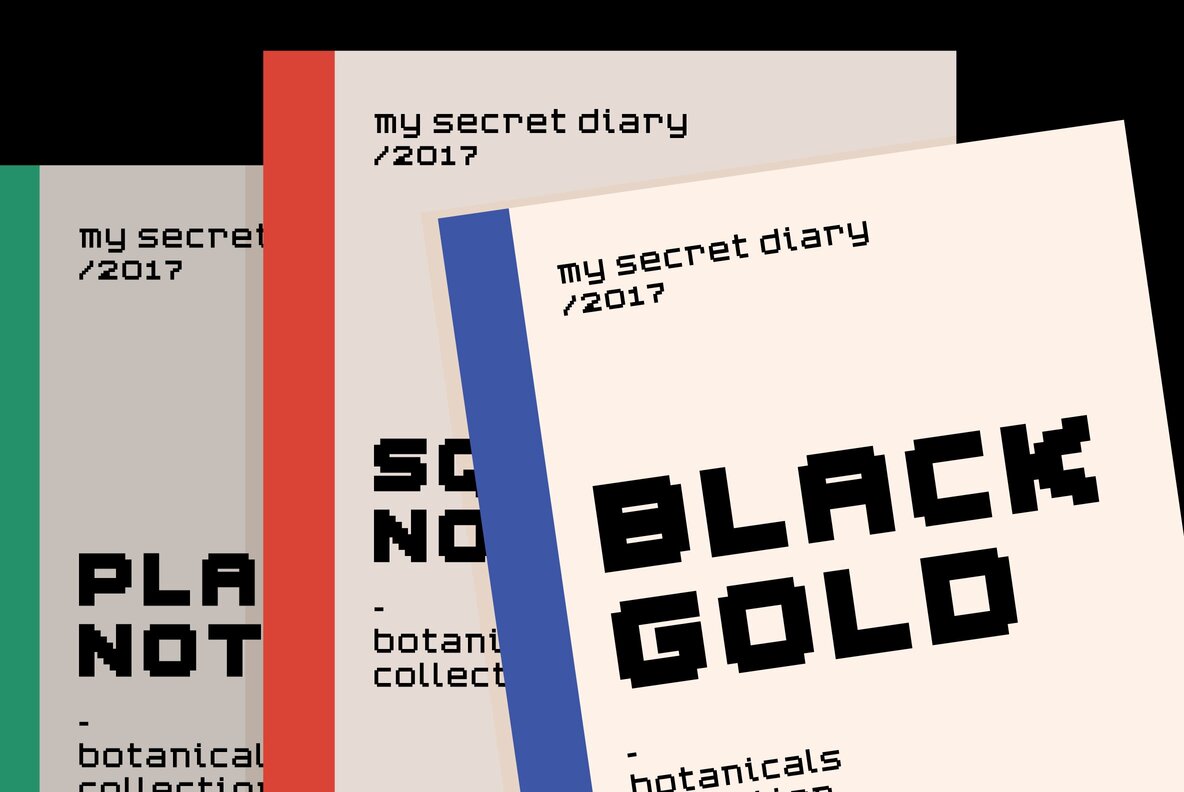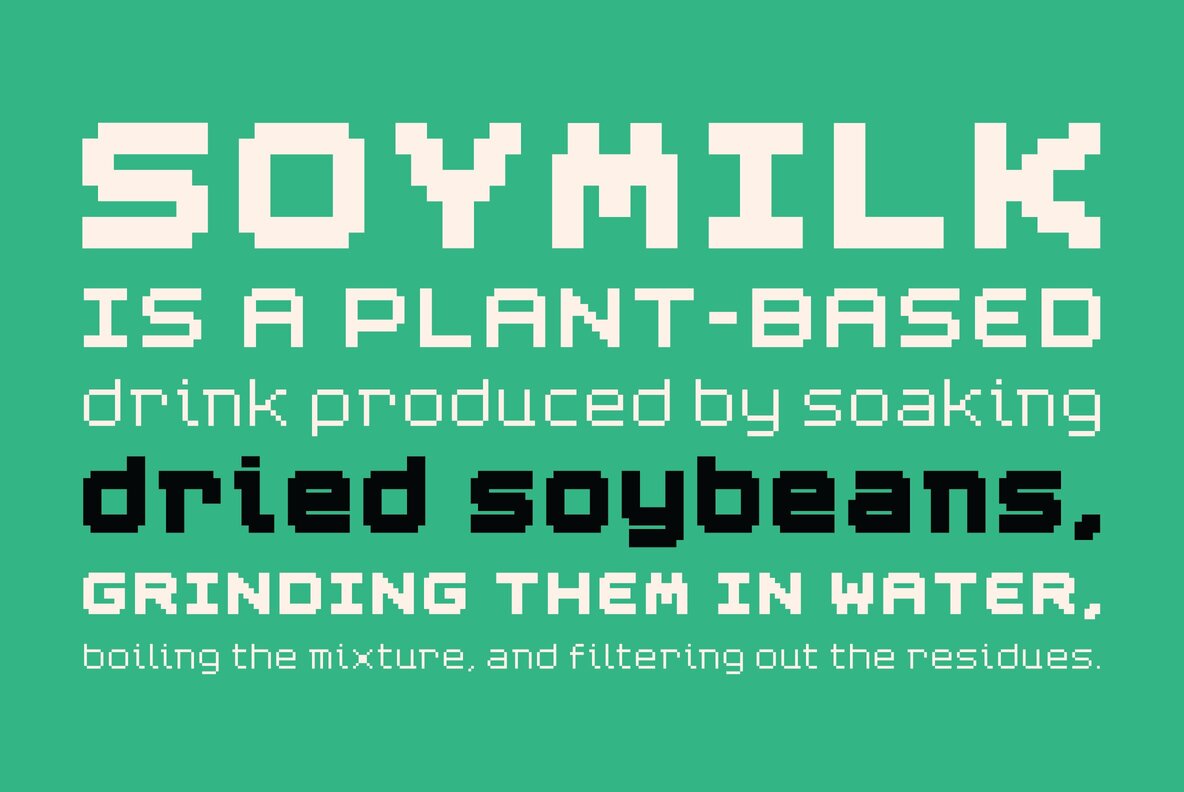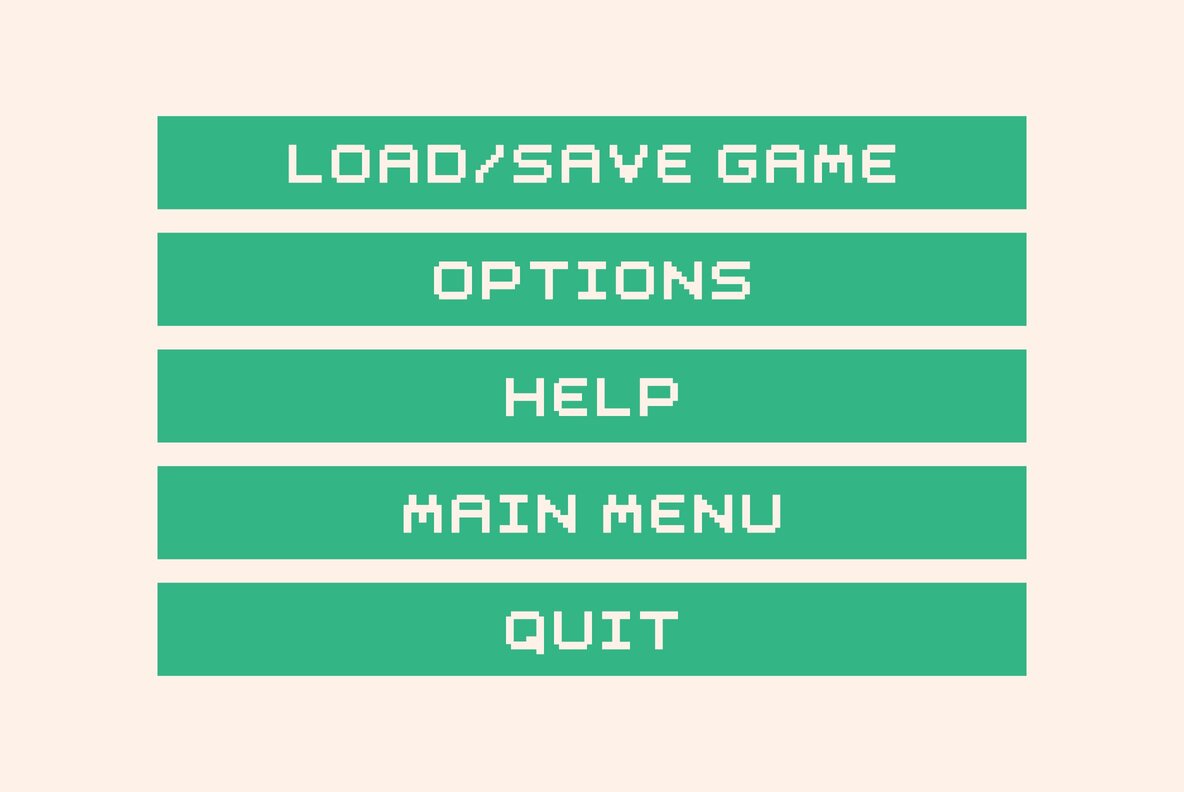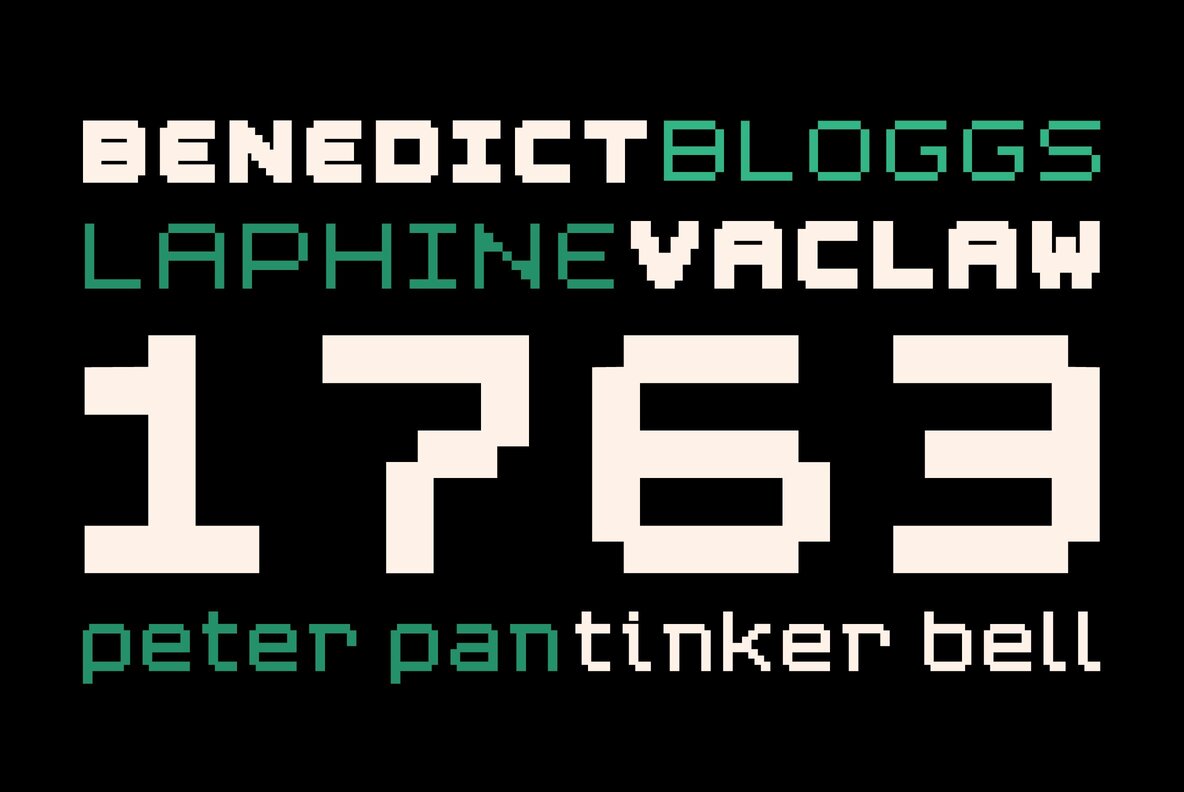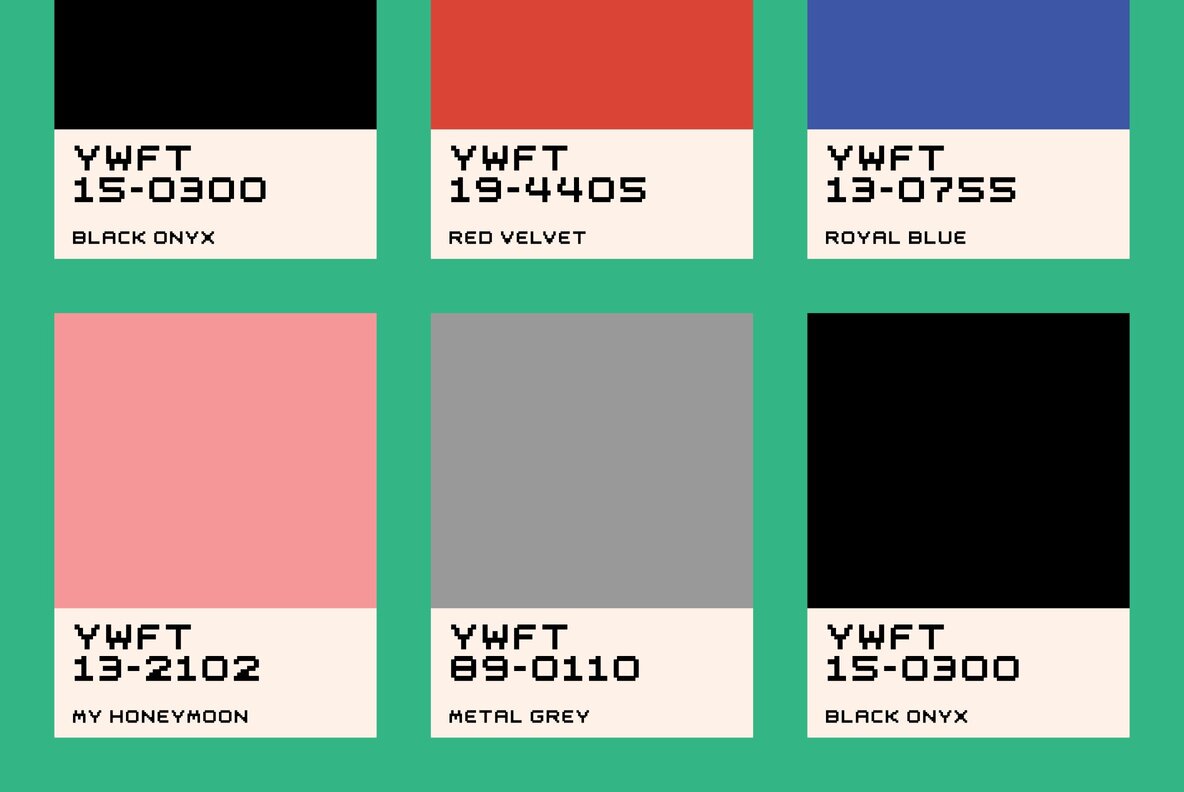
YWFT Blackgold
Foundry: YouWorkForThem
Challenging Stage! YWFT Blackgold was originally designed as a second extension to YWFT Caliper. It is a thick, chunky, video game-inspired pixel font that works great in digital- and retro-themed projects. (And of course for entering your name in the high scores.) YWFT Blackgold works well for both body and headline use, and is typically best onscreen, but don't let that keep you off a billboard in Times Square. YWFT Blackgold was converted to opentype in 2010. Designed exclusively by Michael Cina and YouWorkForThem.